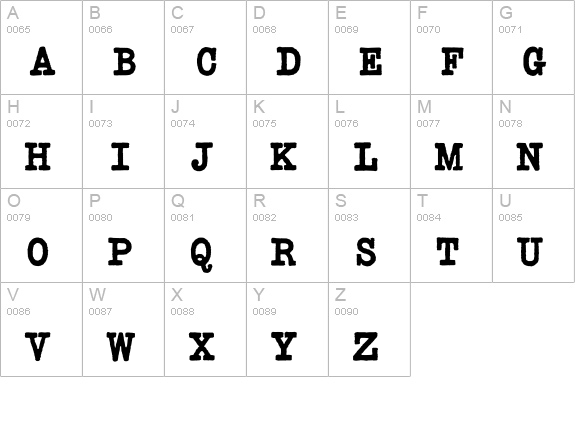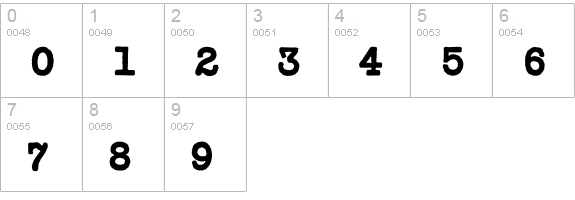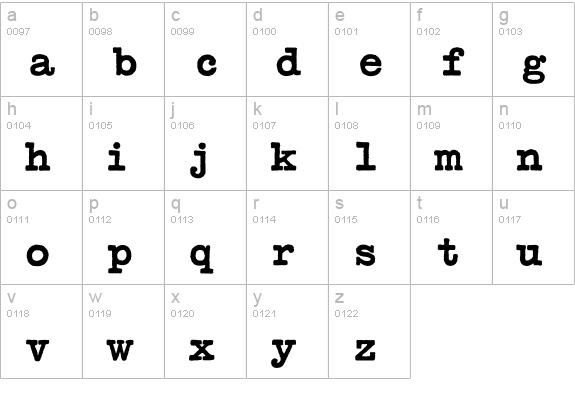
TypeWriterBoldConde Font Details
TypeWriterBoldConde is a modern and stylish font that exudes confidence and professionalism. With its bold and condensed design, this font is perfect for adding a touch of elegance to any project. Whether you're designing a logo, creating a poster, or crafting a sleek website, TypeWriterBoldConde is the ideal choice. This font features clean lines and sharp edges, giving it a contemporary look that is both timeless and versatile. Its bold weight commands attention and makes a bold statement, while its condensed form allows for maximum space efficiency without sacrificing legibility. One of the best things about TypeWriterBoldConde is that it is free to download. That's right, you can get this amazing font without spending a dime. Simply head over to FontsMarket.com and you can easily download and start using it in your projects right away. Don't miss out on this fantastic opportunity to elevate your designs with TypeWriterBoldConde. Download it for free at FontsMarket.com and let your creativity soar.